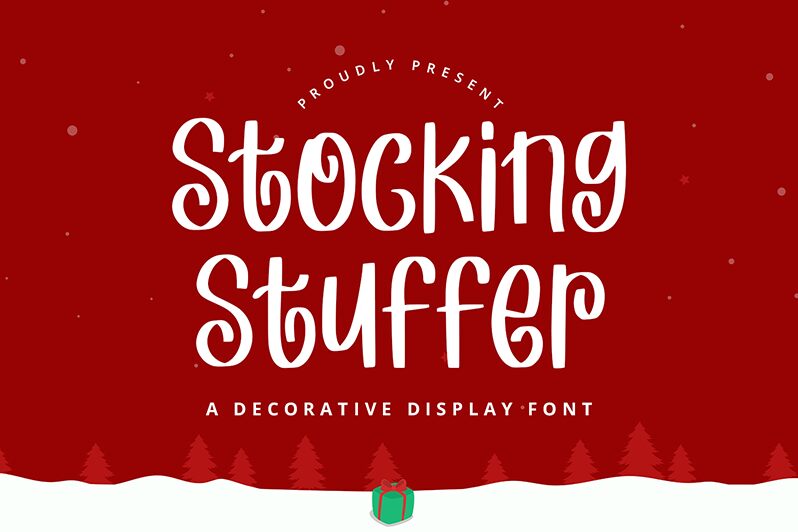
Stocking Stuffer
Stocking Stuffer font by Alpaprana Studio is a holiday typeface with Christmas and retro influences. It features a condensed design with whimsical, decorative letters embellished with fun elegant elements. The stylish typography tool makes for creative works made with unique artistic flair.
A versatile free Christmas font to use for invitations, postcards, flyers, posters, newsletters, books covers, packaging designs, and website banners. Use it in movie titles or intro scenes as well as in apps and video games. It is a great choice for branding projects of chocolate shops or events related to Christmas such as live music parties or plays at the theatre.